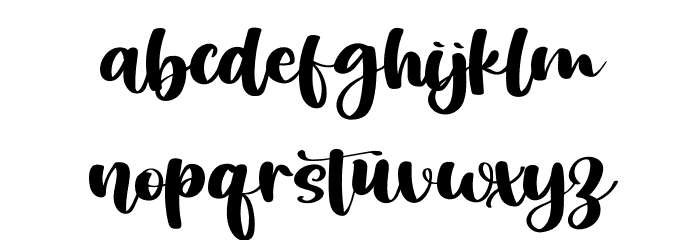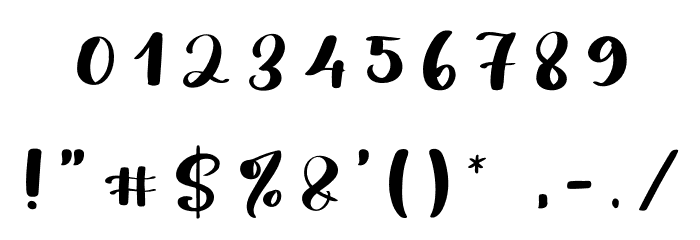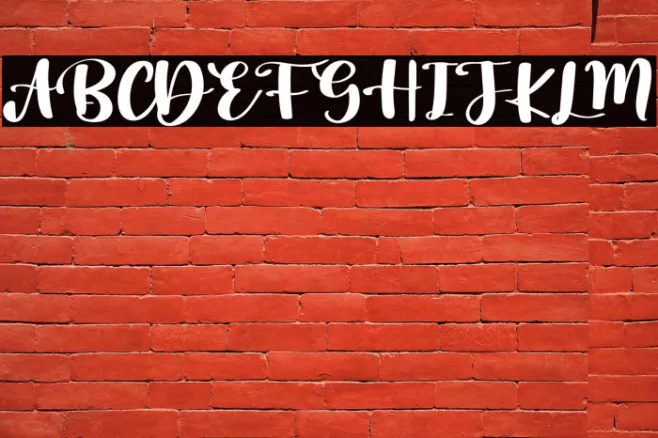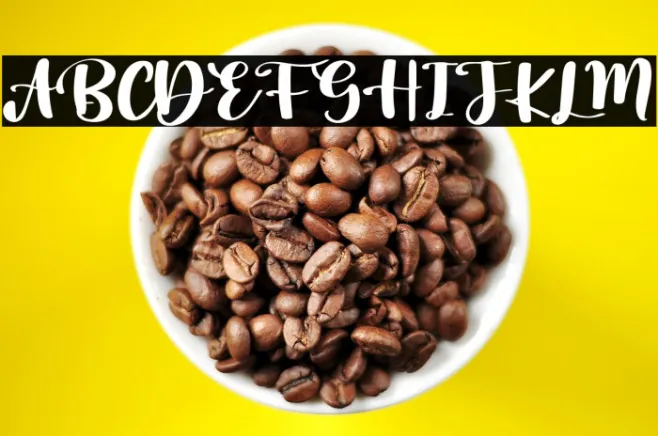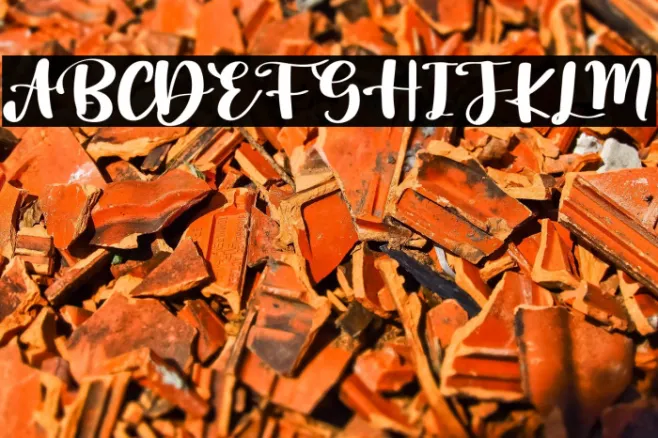
Sunnday Font
This font features a bold and expressive script style with a handwritten feel. The letters are characterized by their flowing, cursive forms and thick strokes, giving them a dynamic and lively appearance. The uppercase letters are particularly ornate, with loops and swashes that add a touch of elegance and flair. The lowercase letters maintain a consistent style, complementing the uppercase with their rounded and connected forms. Numbers and special characters are designed to match the overall aesthetic, ensuring a cohesive look across all text elements. The font's playful yet sophisticated style makes it suitable for a variety of creative projects.
A bold, expressive script font with a handwritten feel and elegant swashes.
- Proposed Projects: Ideal for wedding invitations, greeting cards, branding, and social media graphics.
- Use Case: Logos, Headlines, Invitations